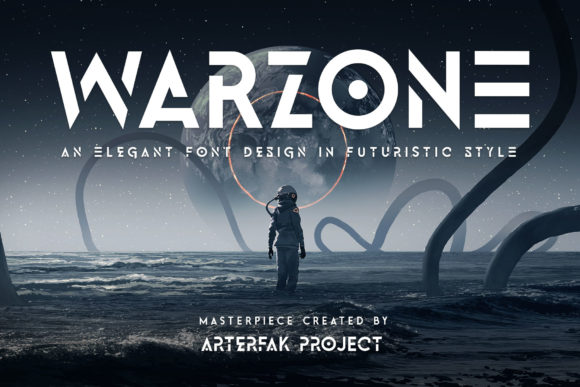
Introducing Warzone Font, the ultimate choice for those seeking the best font for their science thesis! Created by the talented Arterfak Project, this sans serif font will revolutionize the way you present your research.
With its cool and futuristic design, Warzone Font exudes a modern and bold vibe that is perfect for adding a touch of sci-fi to your favorite designs. Whether you're working on a scientific publication, a tech-related project, or simply want to impress your audience, this font has got you covered.
What sets Warzone Font apart is its PUA encoding, allowing you to effortlessly access a vast collection of amazing glyphs and ligatures. Say goodbye to limitations and hello to endless creativity! The intricate details and unique characters will captivate your readers and make your work stand out from the crowd.
Immerse yourself in a world where innovation meets elegance. Let Warzone Font be your companion as you embark on a journey of discovery and exploration. Its versatility knows no bounds, making it suitable for various design projects, from posters and logos to websites and presentations.
Crafted with passion and precision, Warzone Font is more than just a typeface – it's a reflection of your dedication and commitment to excellence. Elevate your work to new heights with this extraordinary font that combines form and function seamlessly.
Transform your science thesis into a masterpiece that not only communicates your ideas but also mesmerizes your audience. Trust in Warzone Font to deliver the impact you desire. Your journey to success starts here.